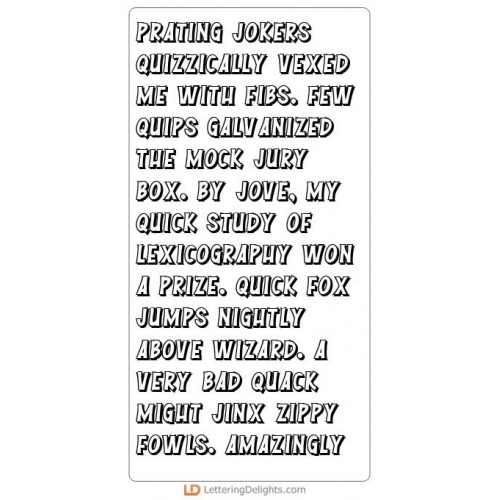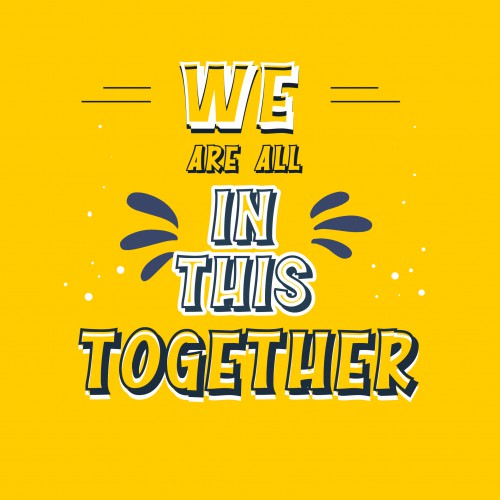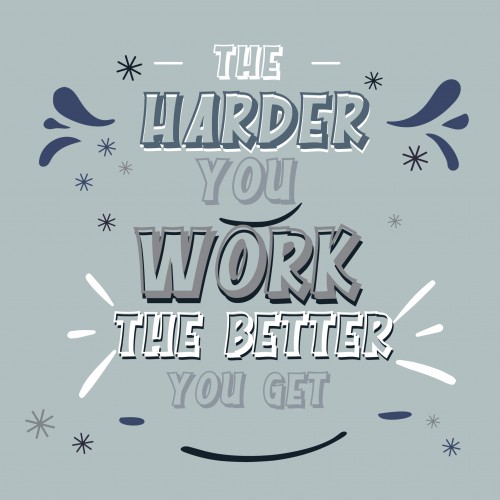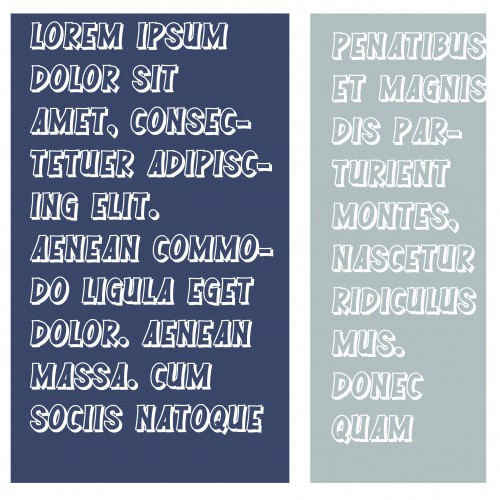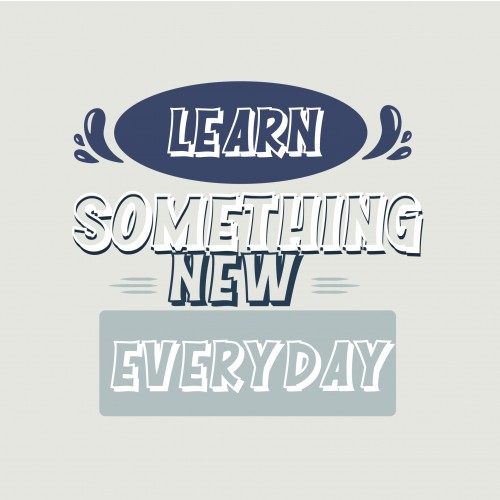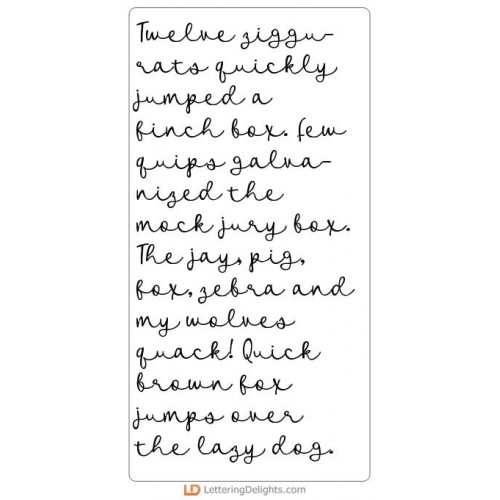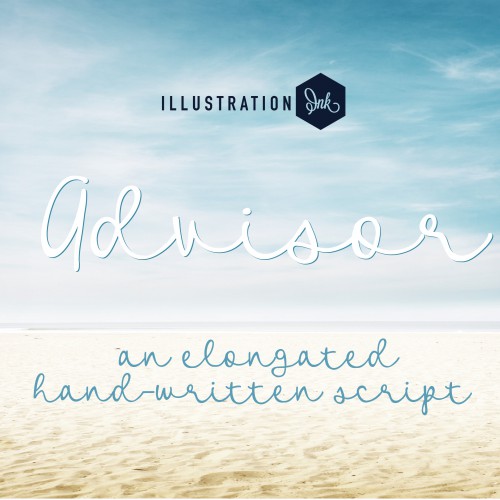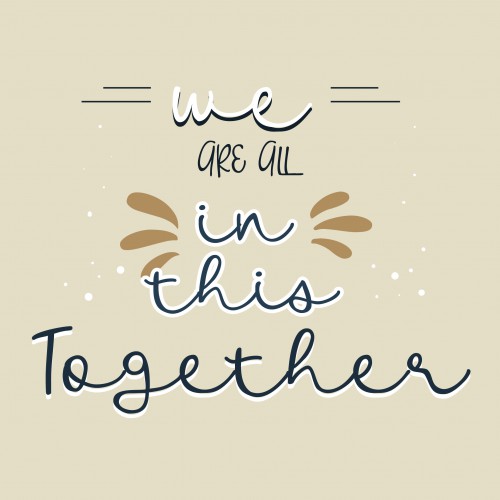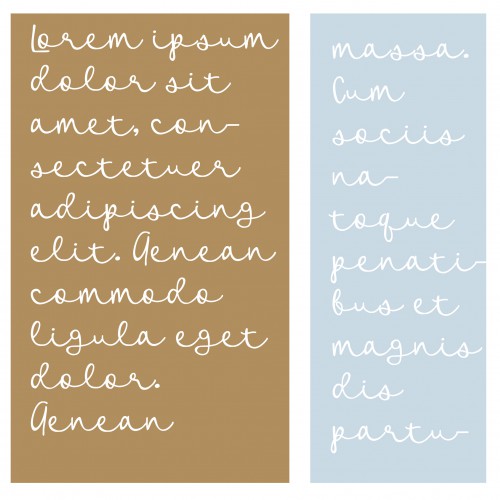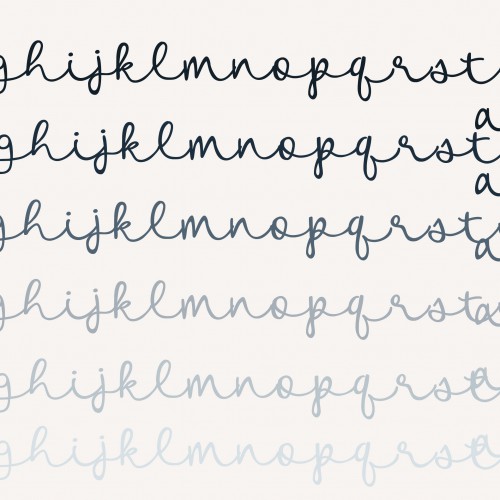
Blueberry Tart - Big Bundle
This fun collection features delicous kawaii style blueberry treats and blueberry emojis perfect for cards, crafts, gifts, parties, scrapbook pages, planner stickers and more!
PN Whammy Upright - FN
This all-cap font is great for a comic look...
PN Whammy 3D - FN
This all-cap font is great for a comic look...
ZP Advisor Black - FN
This elongated, hand-written script is a bit bouncy with a casual feel...
ZP Advisor - FN
This elongated, hand-written script is a bit bouncy with a casual feel...
ZP Advisor Bold - FN
This elongated, hand-written script is a bit bouncy with a casual feel...
PN Dolliecakes - FN
This hand-written print features slab serifs throughout...
PN Dolliecakes Light - FN
This hand-written print features slab serifs throughout...
DB Blueberry Tart - DB
This fun doodlebat font features 26 delicous kawaii style blueberry treats perfect for cards, crafts..
DB Blueberry Tart - Emojis - DB
This fun doodlebat font features 26 blueberry emojis perfect for cards, crafts, gifts, parties, scra..
Blueberry Tart - GS
This fun graphic set features 26 delicous kawaii style blueberry treats perfect for cards, crafts, g..
Blueberry Tart - CS
This fun cuttable graphic set features 26 delicous kawaii style blueberry treats perfect for cards, ..
Blueberry Tart - Emojis - GS
This fun graphic set features 26 blueberry emojis perfect for cards, crafts, gifts, parties, scrapbo..
Blueberry Tart - Emojis - CS
This fun cuttable graphic set features 26 blueberry emojis perfect for cards, crafts, gifts, parties..
Blueberry Tart - CP
Create adorable blueberry gift bags, gift card, and a basket of blueberries with this fun cut projec..
Blueberry Tart - AL
This fun blueberry alphabet coordinates with our Blueberry Tart Collection...
Blueberry Tart - PP
This fun paper pack coordinates with our Blueberry Tart Collection...